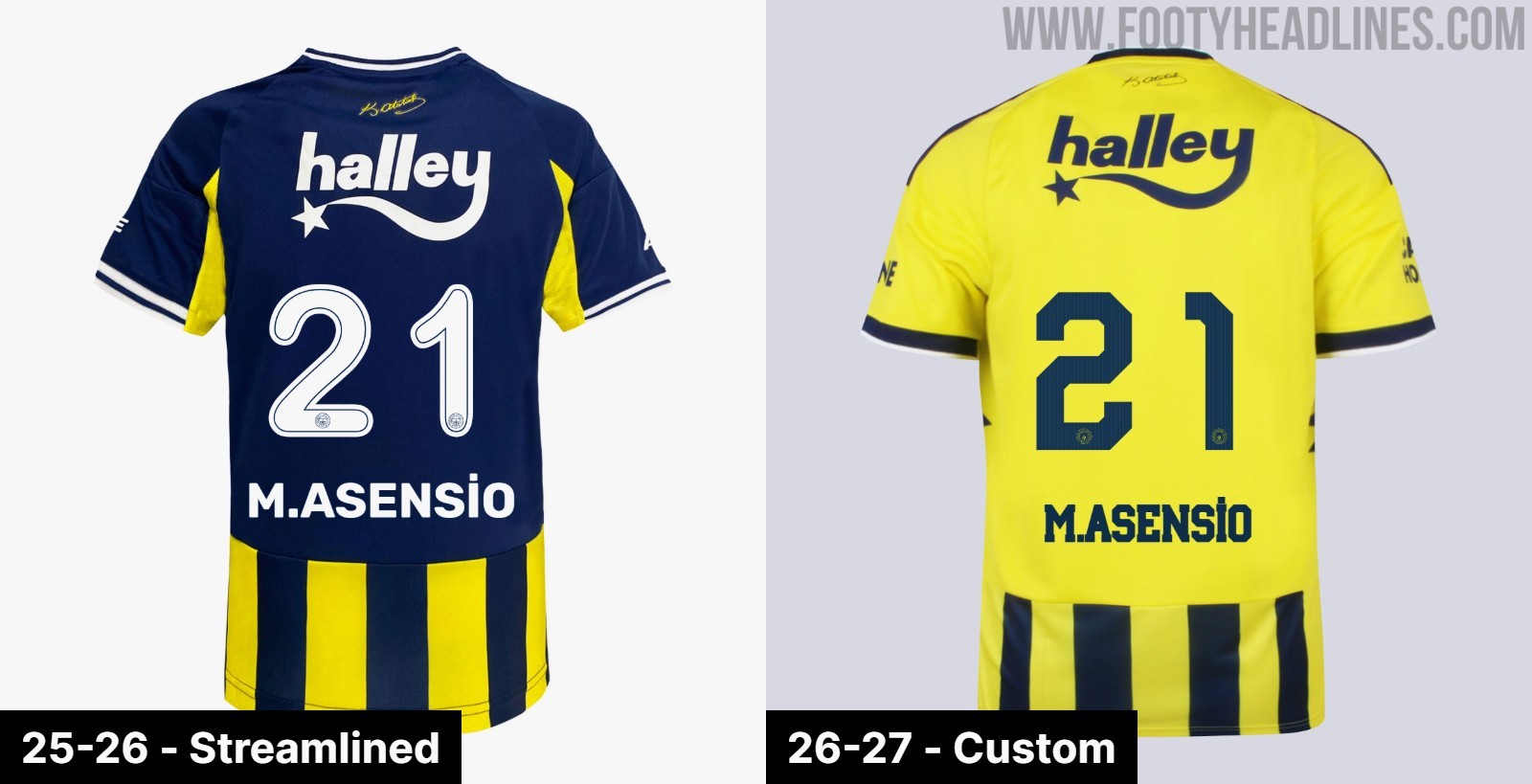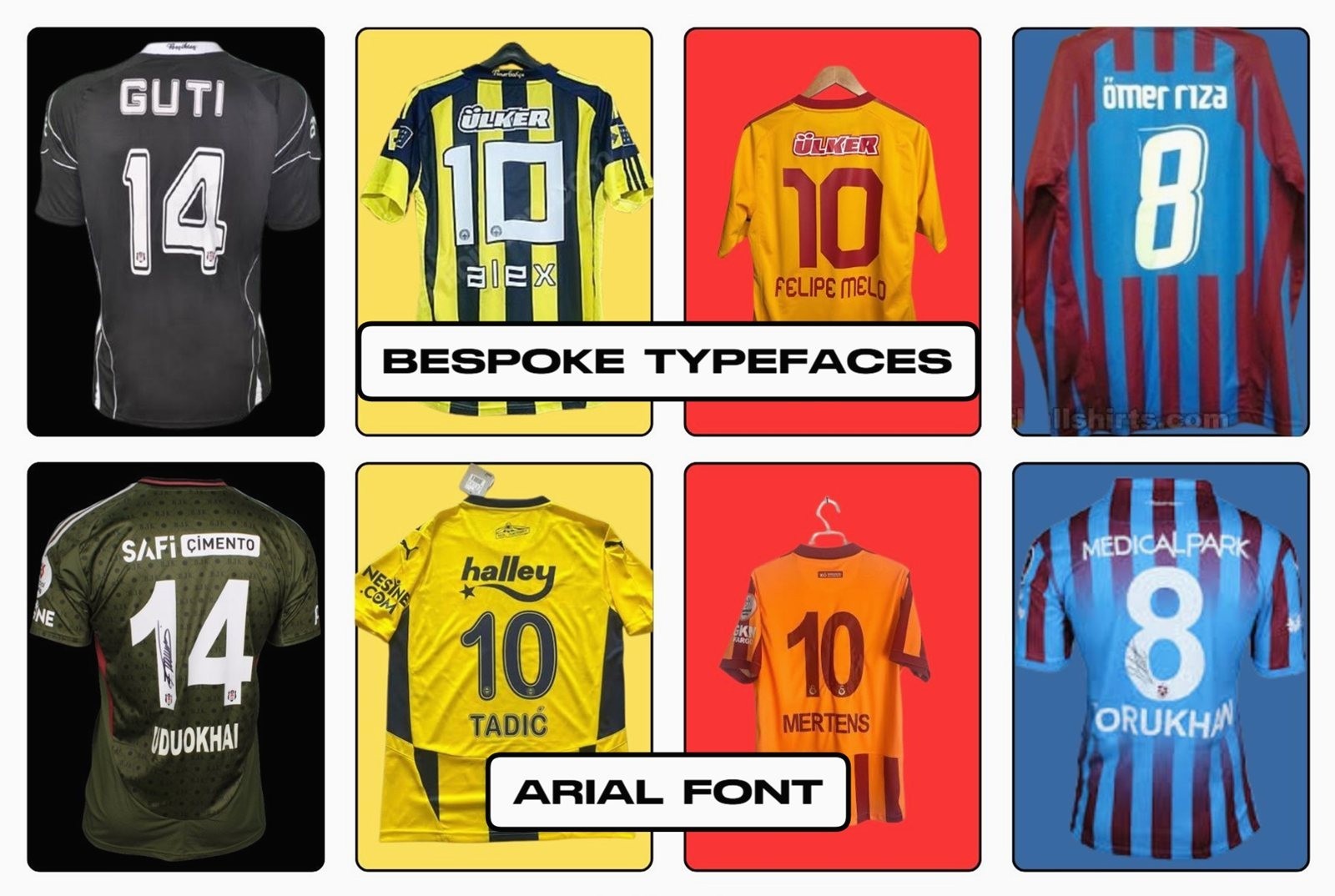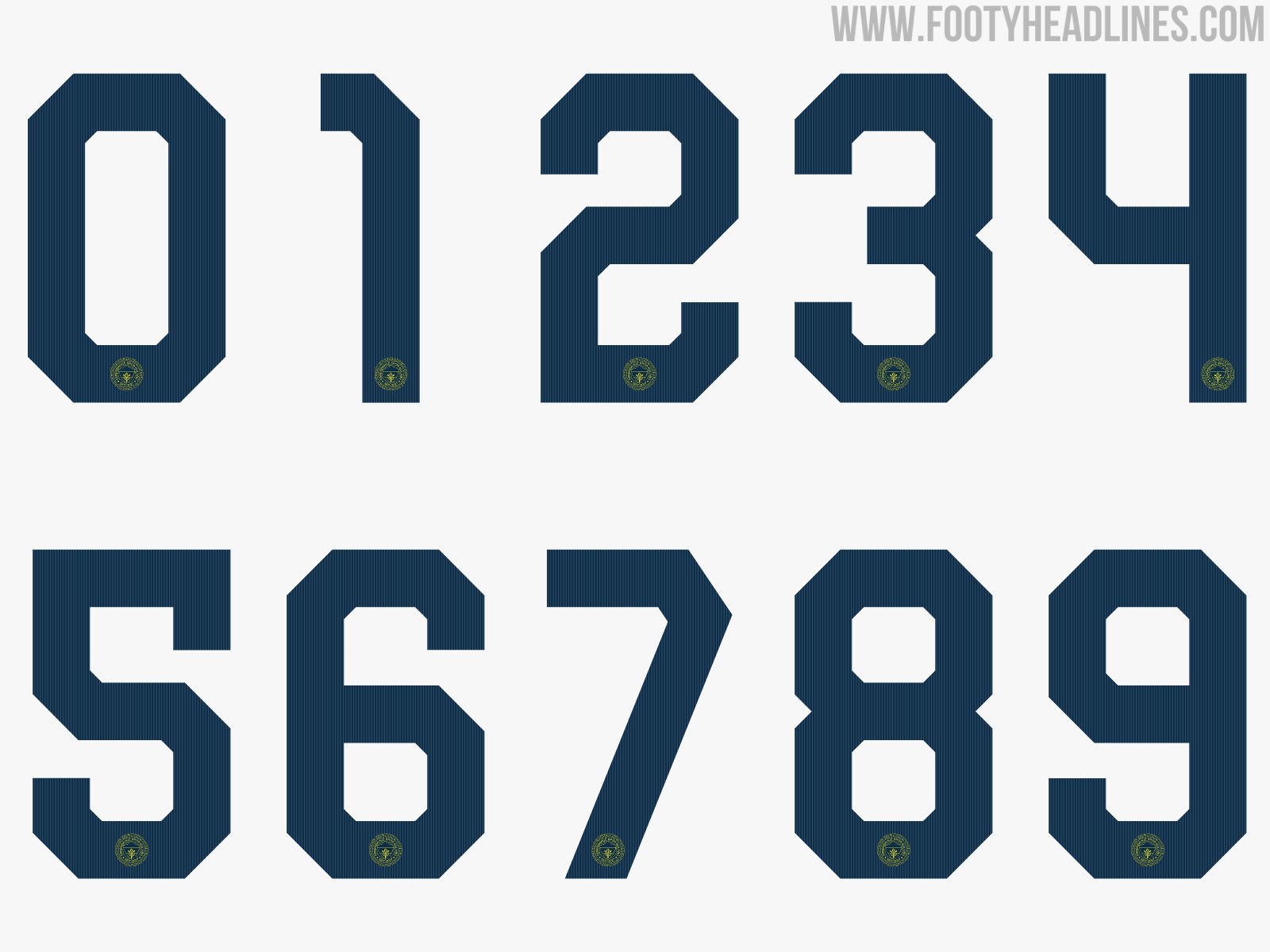
End of Arial Era in Süper Lig: Clubs Have Custom Kit Fonts for 26-27 Season
• Mandatory Arial Font Abolished: The Turkish Football Federation (TFF) has ended the decade-long mandate requiring all Süper Lig clubs to use a generic Arial font for player names and numbers.
• New Fonts for 2026-27 Season: Although the rule was abolished in July 2025, clubs will implement their custom kit fonts starting with the 2026-27 season due to prior production timelines.
• Clubs Gaining Creative Freedom: Süper Lig clubs like Fenerbahçe and Beşiktaş are embracing this change by developing bespoke fonts and, in some cases, new kit partnerships to reflect their unique brand identities.
For over a decade, Turkish football fans have voiced their frustration over a seemingly minor, yet highly impactful, detail on their team's kits: the typography. Since 2012, the Turkish Football Federation (TFF) enforced a strict mandate requiring all clubs in the Süper Lig to use a standardized, generic Arial font for player names and numbers. While other major European leagues continually updated their visual identities with modern, bespoke typefaces, the Süper Lig remained stuck in a visual rut. However, after years of intense fan protests and social media campaigns under hashtags like #ArialOut, the "Arial era" is officially over.
The TFF formally abolished the mandatory use of the generic font in July 2025, granting clubs the creative freedom to select their own typography. While the ruling came too late for clubs to implement changes for the 2025-26 season - as kit designs and production runs had already been finalized months prior - the impact of this landmark decision is set to be fully realized in the upcoming 2026-27 campaign.
What to Expect in 2026-27
As teams prepare for the 2026-27 season, which kicks off in mid-August, anticipation is building around how clubs will utilize this newfound creative freedom.
• Fenerbahçe: The Istanbul giants were among the first to address the rule change. Following the TFF's announcement last year, Fenerbahçe released a statement acknowledging the fan feedback and explicitly stating that they were "evaluating this feedback to reflect it on our kits for the next season". The club has a bespoke font for their 2026-2027 Adidas kits
• Beşiktaş: The Black Eagles are entering a new era on multiple fronts. Not only will they debut a new font, but the 2026-27 season marks the beginning of their new kit partnership with Nike, having departed from Adidas.
• Galatasaray: While specific details regarding Galatasaray's font choices have yet to be officially revealed, the defending champions are certain to capitalize on the opportunity to have their kits with a bespoke design that reflects their iconic brand.
The retirement of the Arial font is a major victory for Turkish football culture. The generic Arial font was widely criticized by fans and feeling distinctly uninspired compared to the bespoke typography seen in the Premier League, La Liga, or Serie A. Now, even better for clubs, they have an own typeface.